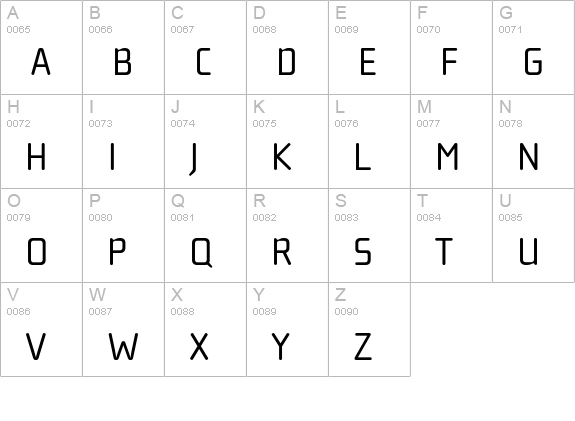
ChollaWide is a modern and versatile font that exudes a sense of elegance and sophistication. With its clean lines and bold presence, this typeface is perfect for a wide range of design projects, from logos to branding materials to website headers. The wide spacing between letters gives ChollaWide a unique and eye-catching look that will make your text stand out. What makes ChollaWide even more appealing is that it is available for free download at FontsMarket.com. This means that you can easily access this stunning font and use it in your projects without any cost. Whether you are a professional designer or a hobbyist looking to add a touch of style to your creations, ChollaWide is a fantastic choice that won't break the bank. Download it today and elevate your designs with this beautiful and free font.